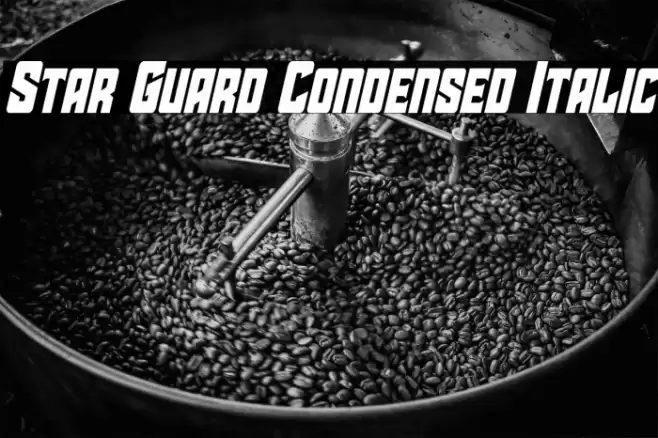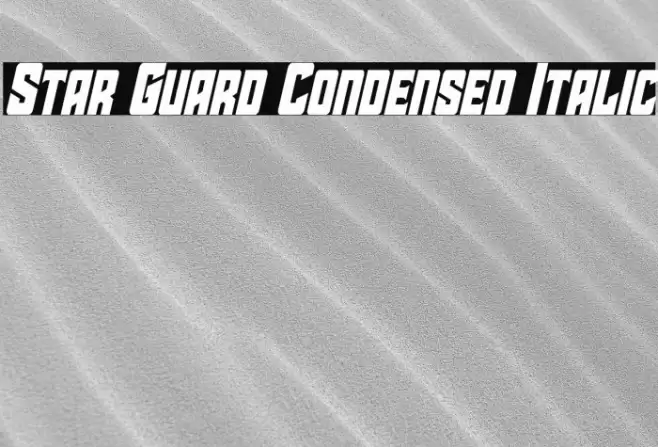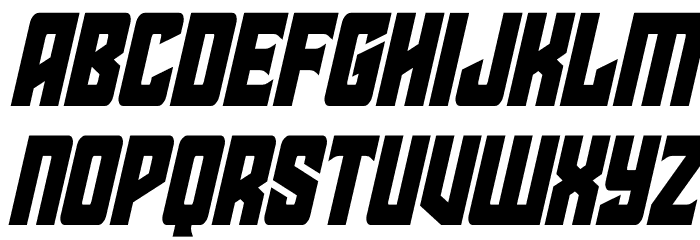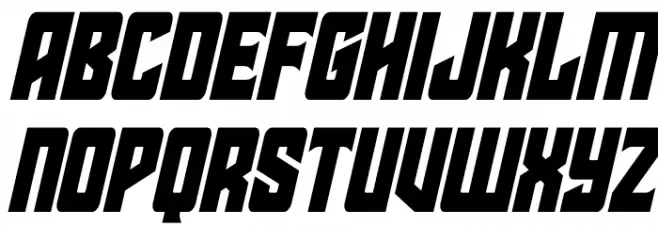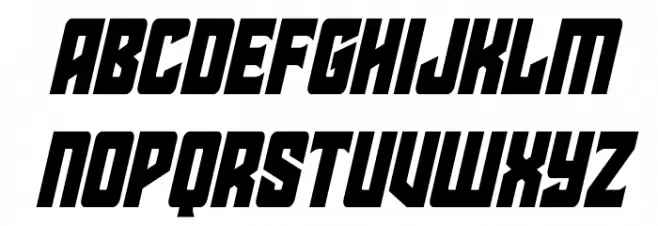
Star Guard Condensed Italic Font
Star Guard Condensed Italic Description
This font features a bold, condensed style with a distinct italic slant, giving it a dynamic and energetic appearance. The characters are tightly spaced, enhancing the compact and impactful look. The strokes are thick and consistent, providing a strong visual presence. The angular design elements add a modern and edgy feel, making it suitable for attention-grabbing headlines and logos. The uppercase and lowercase letters maintain a uniform style, while the numerals and special characters complement the overall aesthetic.
A bold, condensed, and italic font with a modern, dynamic style from Uncategorized fonts.
- Proposed Projects: Ideal for sports branding, action movie posters, video game titles, and dynamic advertising campaigns.
- Character Spacing: Tight
- Use Case: Headlines, Logos